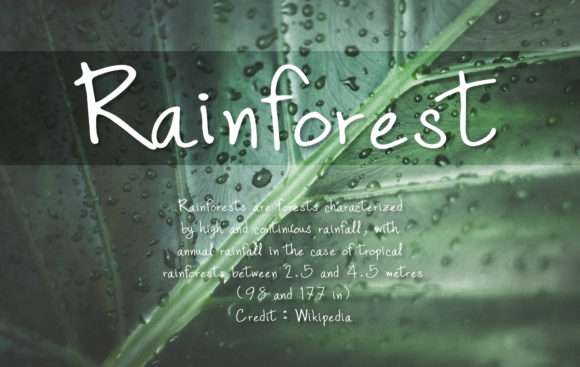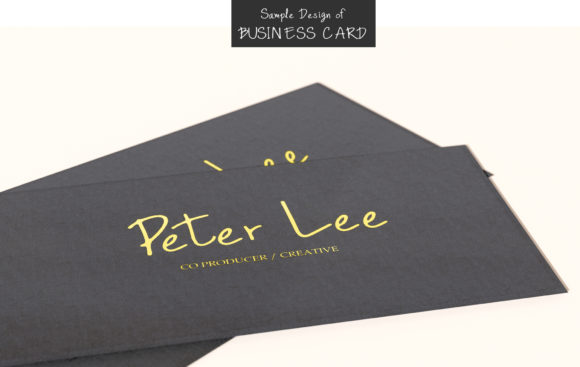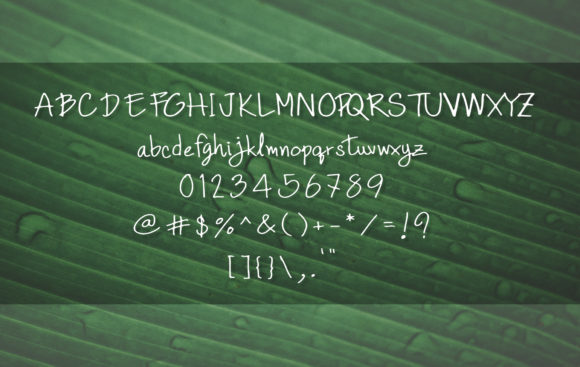
Give Your Designs a Touch of Whimsy with Archi Light Font
Have you ever found yourself scribbling down ideas in a notebook, only to realize that your handwritten notes have become the most visually appealing part of your design process? For many creatives, it’s the imperfections and quirks of handwriting that bring a design to life. That’s exactly what inspired the creation of the Archi Light Font – a beautiful, handwritten typeface that captures the essence of handwritten notes.
Archi Light Font is more than just a font; it’s a way to add a touch of personality to your designs. With its sweet and charming feel, it’s the perfect choice for projects where you want to convey a sense of warmth and approachability. Whether you’re working on a branding project, creating a marketing campaign, or simply adding a personal touch to a blog post, Archi Light Font is sure to make your designs stand out.
- Unique Characteristics: The font features a clean and minimalist design, with a unique blend of modern and classic elements, making it perfect for architectural and design-related projects.
- Font Style: The font is available in a light style, making it ideal for use in headings, titles, and other display text where a clean and elegant appearance is desired.
Archi Light Font Review
Archi Light Font is a beautiful, modern font that has caught my attention. Here are the things that I think work well: ✨
- It has a sleek, minimalist aesthetic that makes it perfect for designing modern websites, apps, and other digital products.
- The font is highly legible, even at smaller font sizes, making it ideal for body text and headings.
- It has a wide range of weights, from light to bold, which gives designers the flexibility to create visually appealing typography.
However, there are a few limitations to keep in mind: ⚠️
- The font may not be suitable for traditional or classic designs, as it has a distinctly modern feel.
- Some users may find the font too minimalist, and may prefer a font with more ornamentation or flair.
- The font may not be as versatile as some other fonts, and may not work well in certain contexts or industries.
Overall, I think Archi Light Font is a solid choice for designers who want a clean, modern font for their projects. While it may have some limitations, I believe it’s a great option for designers who want to create visually appealing and highly legible typography.
For optimal results, use Archi Light Font in conjunction with a clean and modern design aesthetic. Experiment with different font sizes, colors, and styles to create a visually appealing effect.
Archi Light Font is ideal for:
- Modern branding and logo design
- Minimalist typography
- Business and corporate communications